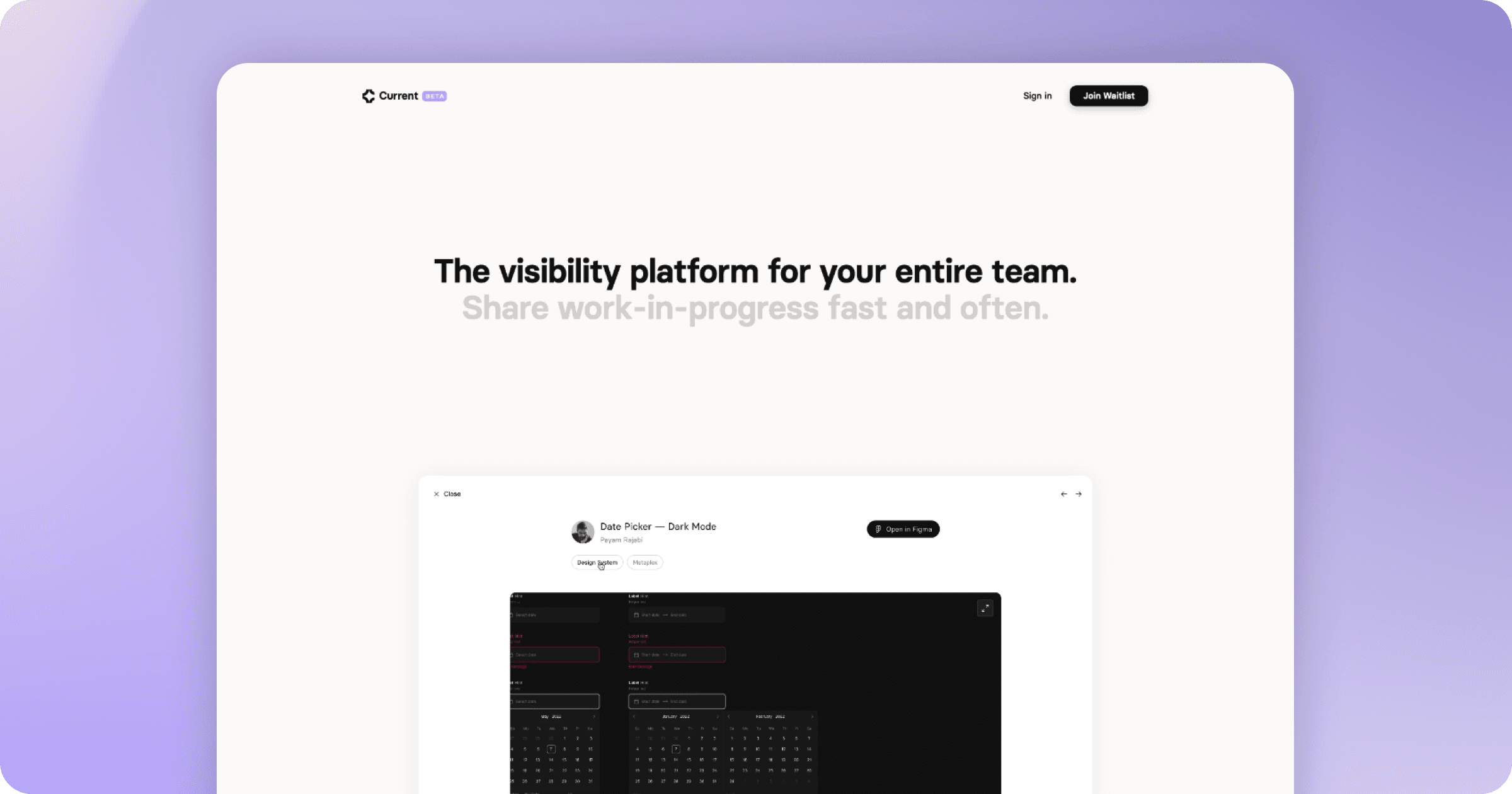
Landing page inspiration & free/pay what you want font: Basier
Came across this modern looking landing page current.so (screenshot: link to image) and immediately wanted to know what Grotesque font was used on it. Headings, text and buttons all seem to use it. You know, in case I wanna ...